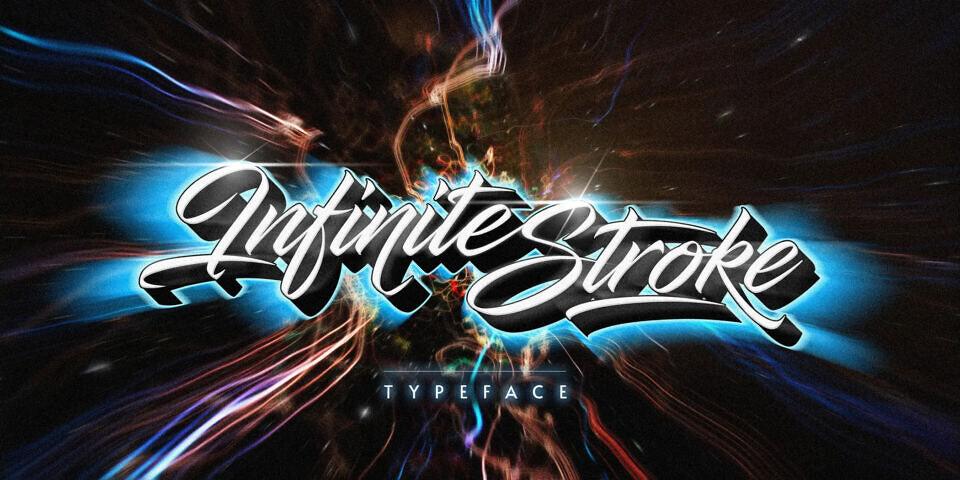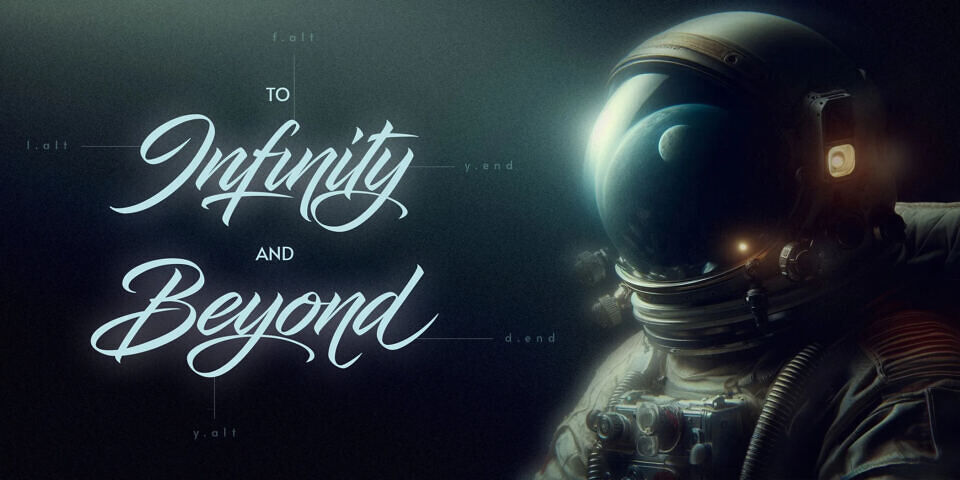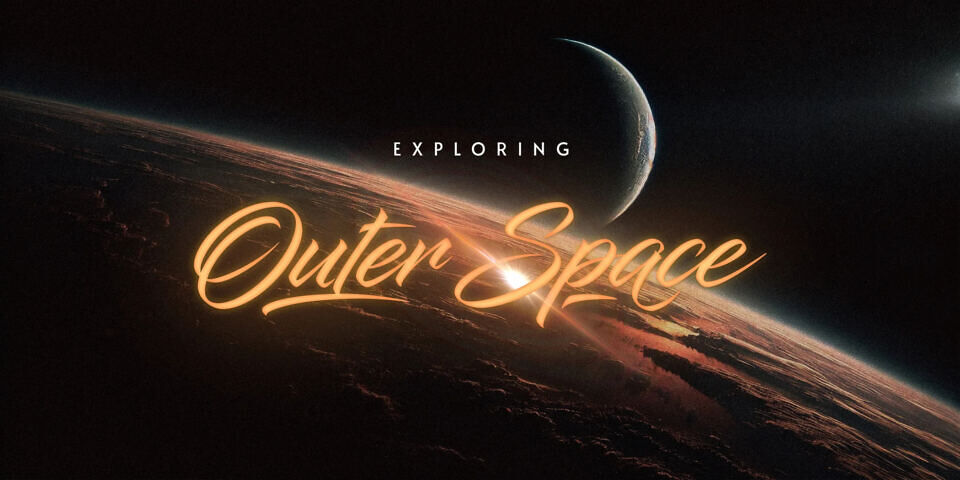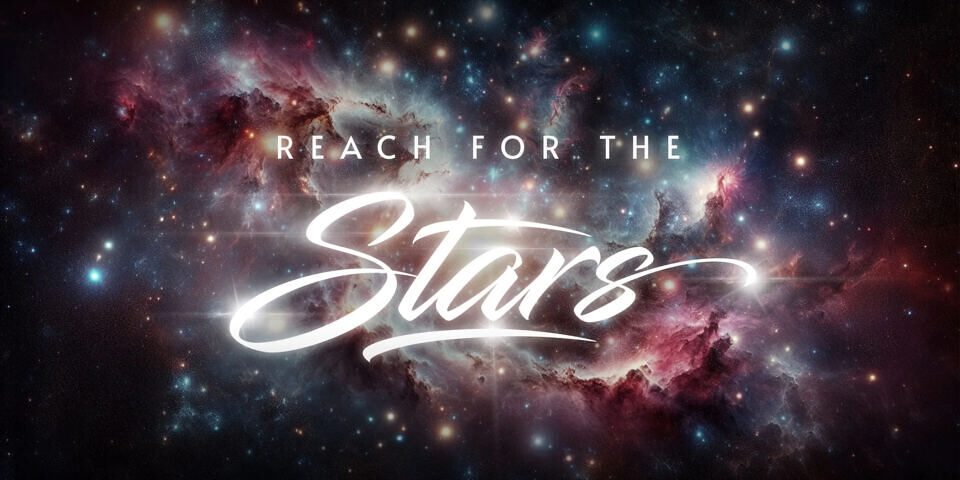
Infinite Stroke is a flowing script typeface designed by Youssef Habchi, characterized by smooth, continuous lines that mimic natural handwriting.
Its calligraphic style creates an elegant, modern feel, making it ideal for logos, invitations, and branding. With multiple styles and extensive character support, it balances decorative flair with readability while maintaining a handcrafted, expressive aesthetic.